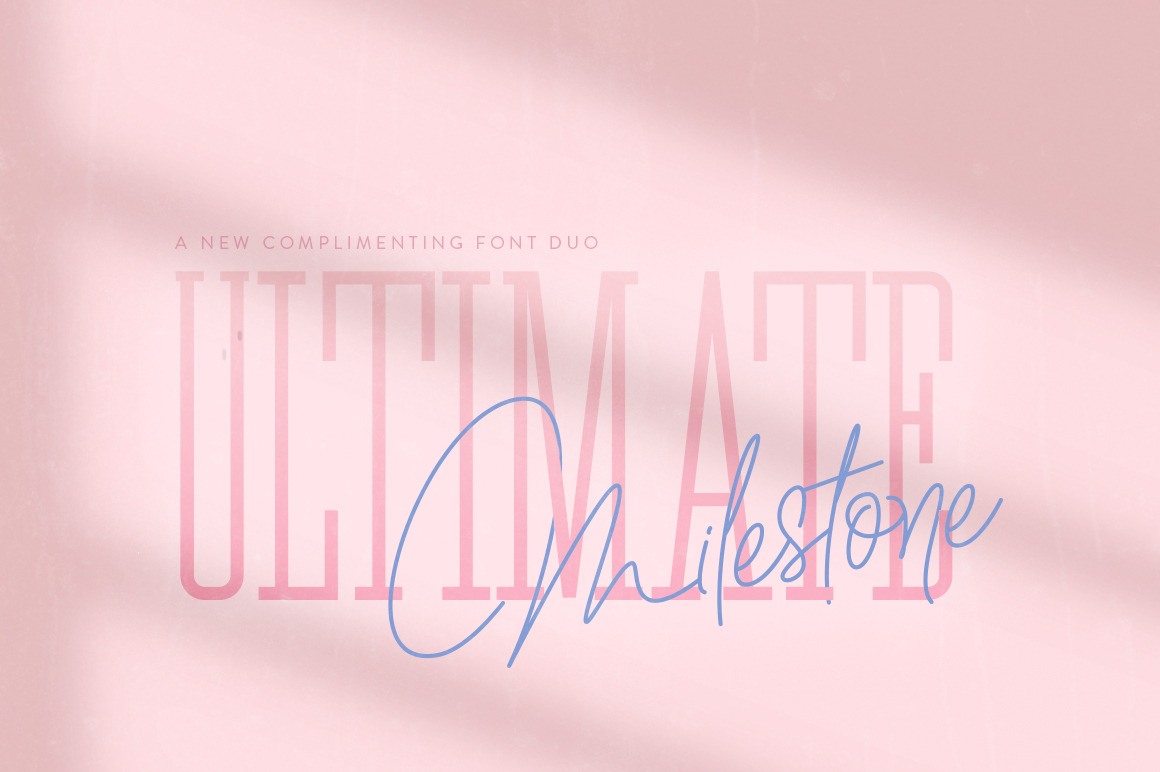
Ultimate Milestone Font Duo
Our new font duo ‘Ultimate Milestone’ is the ultimate font pairing you need! A straight, tall serif with a complimenting, sassy script - what’s not to love! Each font is strong enough to stand alone but equally work well together. Never search for the perfect pair again as you’ve found them!